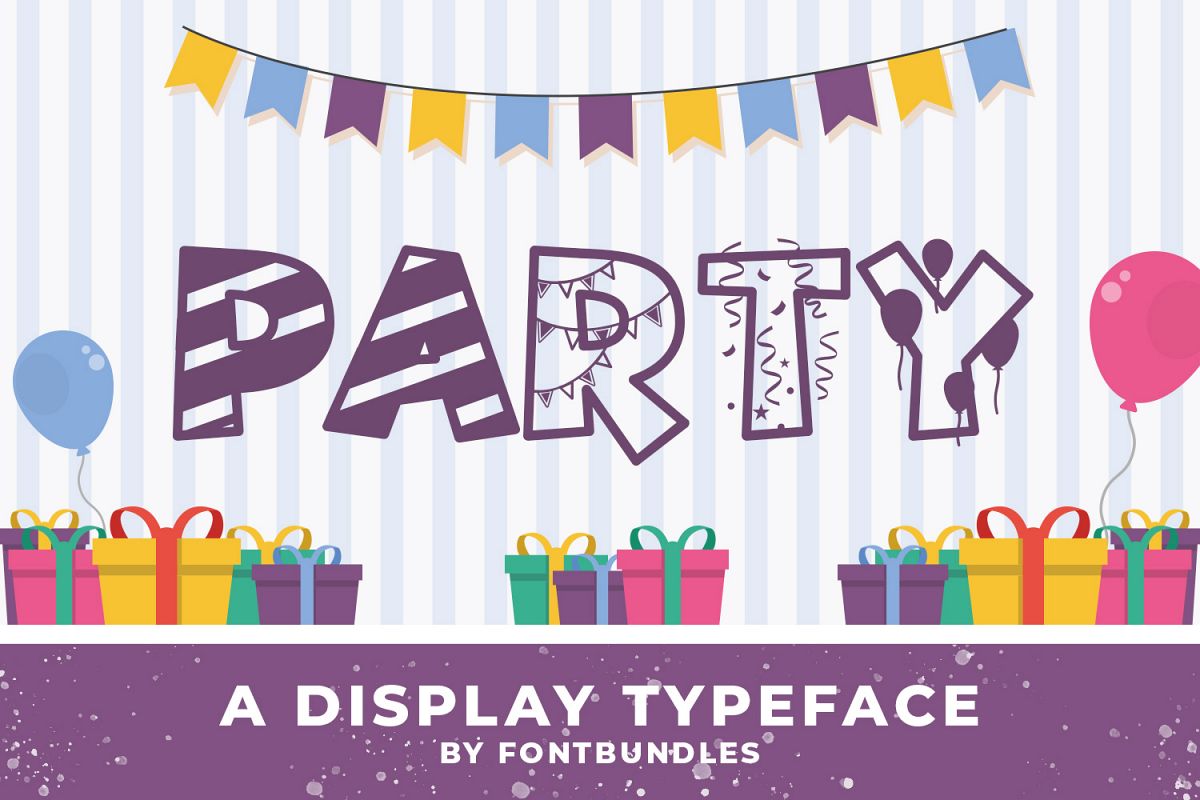
Party is a display typeface with decoration inside. perfect for party needs, birthday party, graduation, greeting cards, packaging, cake, gift and manymore.